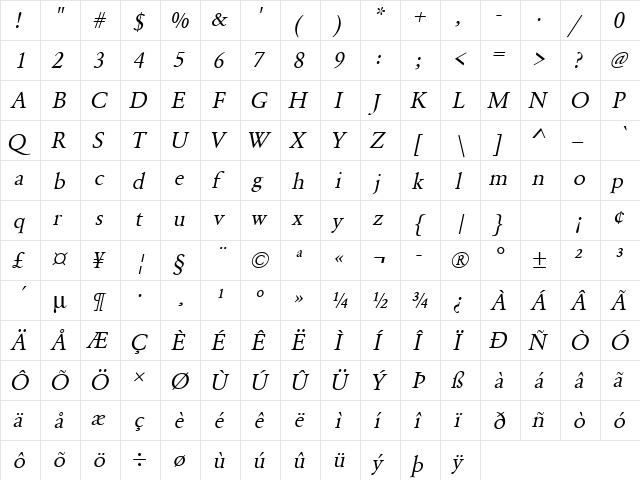
URWGaramondT Oblique
URWGaramondT takes a measured approach to typography — its balanced proportions and neutral character make it a reliable workhorse for both digital and print work. Its italic angle brings a sense of urgency and motion to the letterforms.
Pro Tip: Use URWGaramondT for emphasis, pull quotes, and subheadings where its slanted energy can add rhythm to the layout.